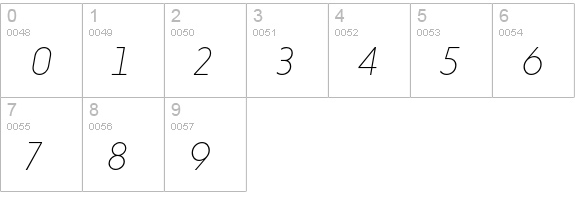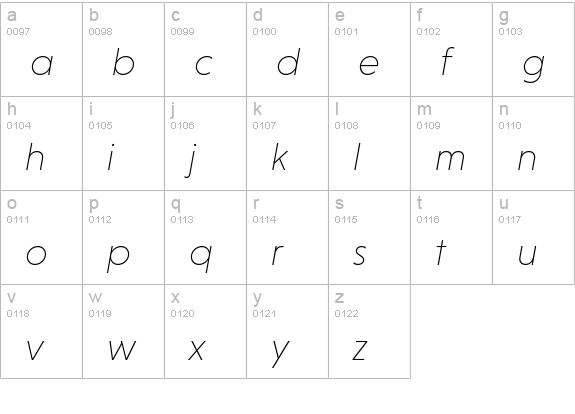
Niveau Grotesk ExtraLight Italic Font Details
Niveau Grotesk ExtraLight Italic is an airy, ultra-refined, italic variant in the Niveau typeface family \xE2\x80\x94 well suited to minimalist headlines and refined display use.
Niveau Grotesk ExtraLight Italic font is a sleek and modern typeface that exudes elegance and sophistication. Its slender and slanted design adds a touch of flair to any project, making it perfect for adding a touch of style to your designs. The italicized characters give a sense of movement and dynamism, making this font ideal for conveying a sense of energy and creativity. The Niveau Grotesk ExtraLight Italic font is not only visually striking but also highly versatile, making it suitable for a wide range of design applications. Whether you are working on a branding project, editorial design, or digital media, this font will elevate your work to new heights. The best part? Niveau Grotesk ExtraLight Italic font is available for free download at FontsMarket.com. This means you can easily access this high-quality typeface without any cost, making it a valuable addition to your font library. Don't miss out on the opportunity to enhance your designs with the Niveau Grotesk ExtraLight Italic font today!